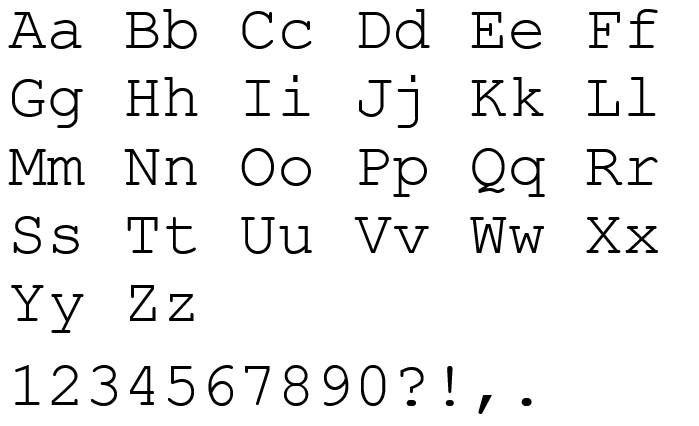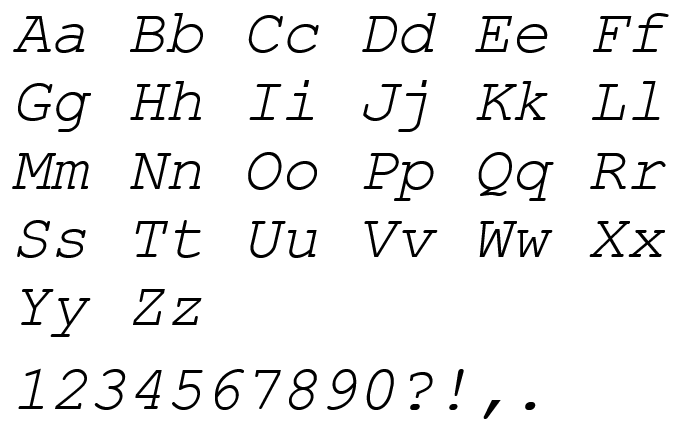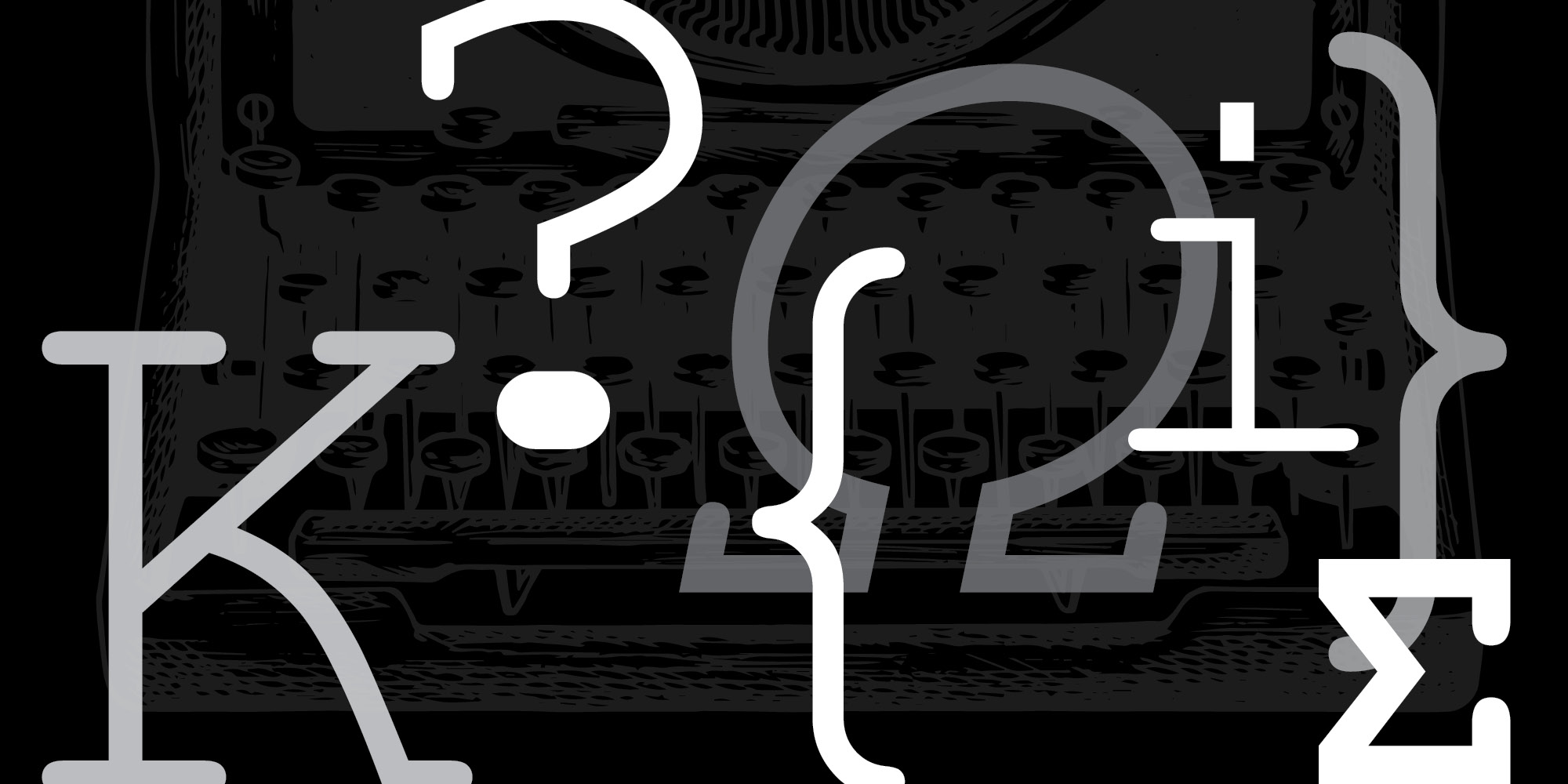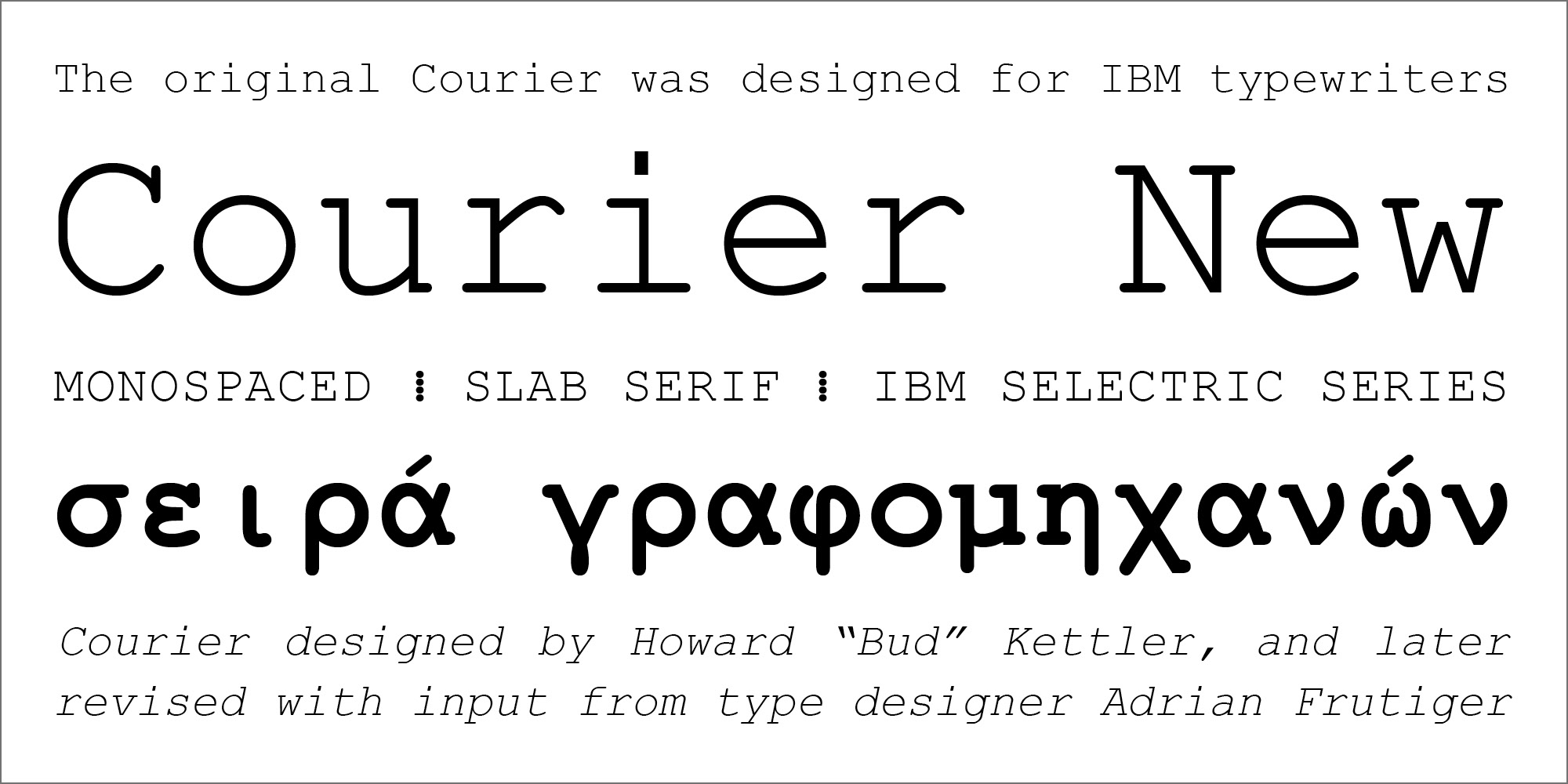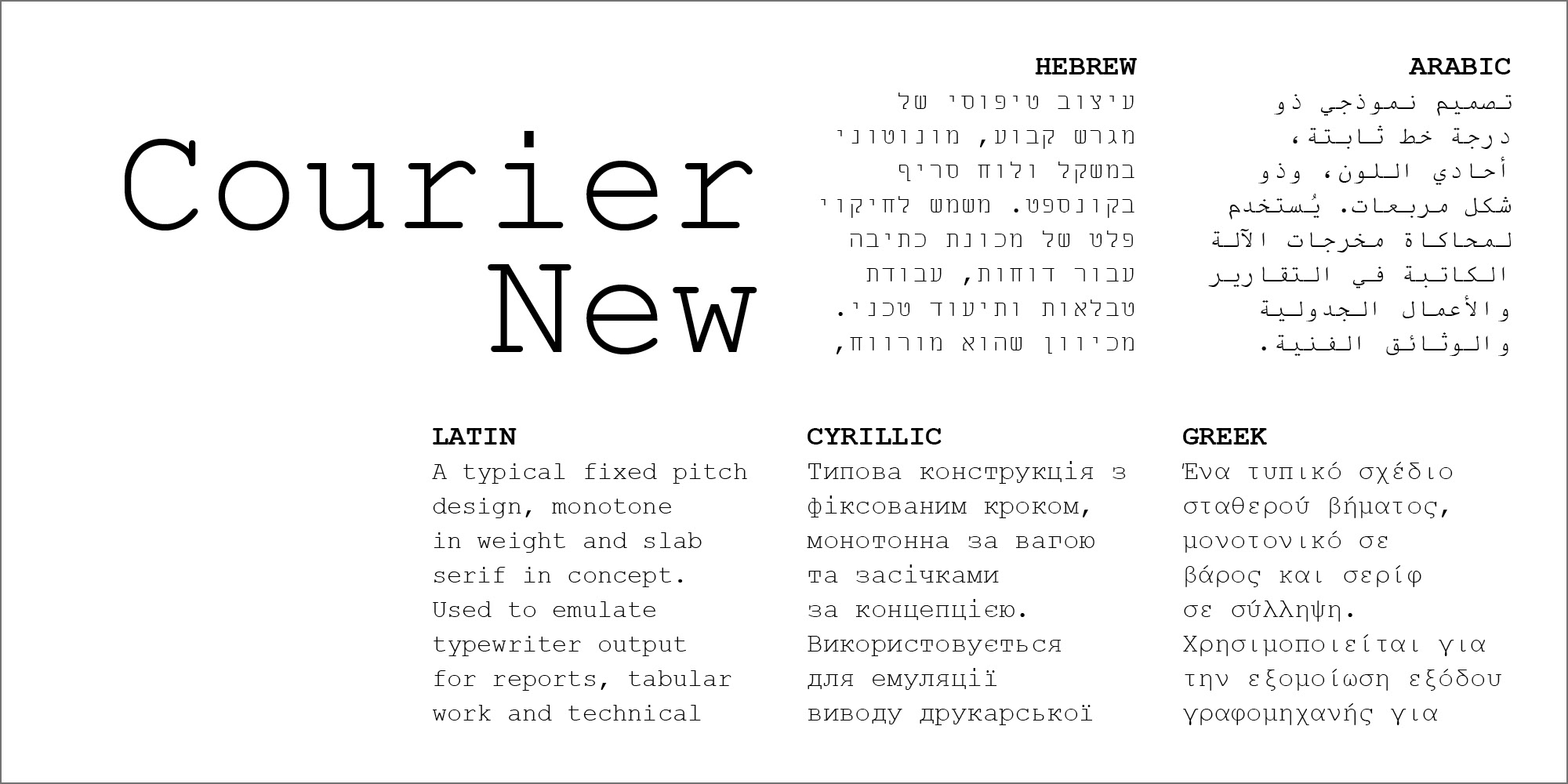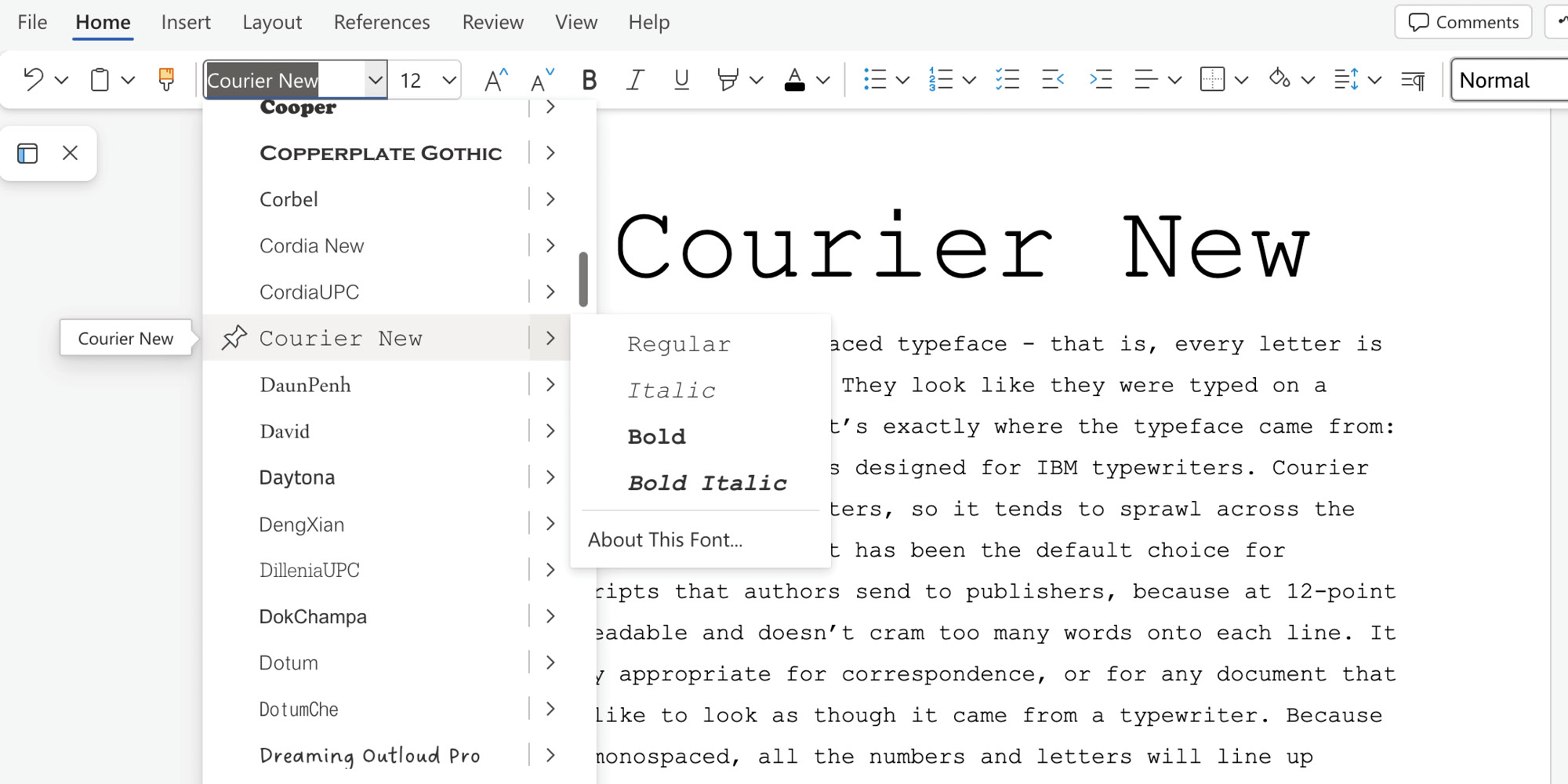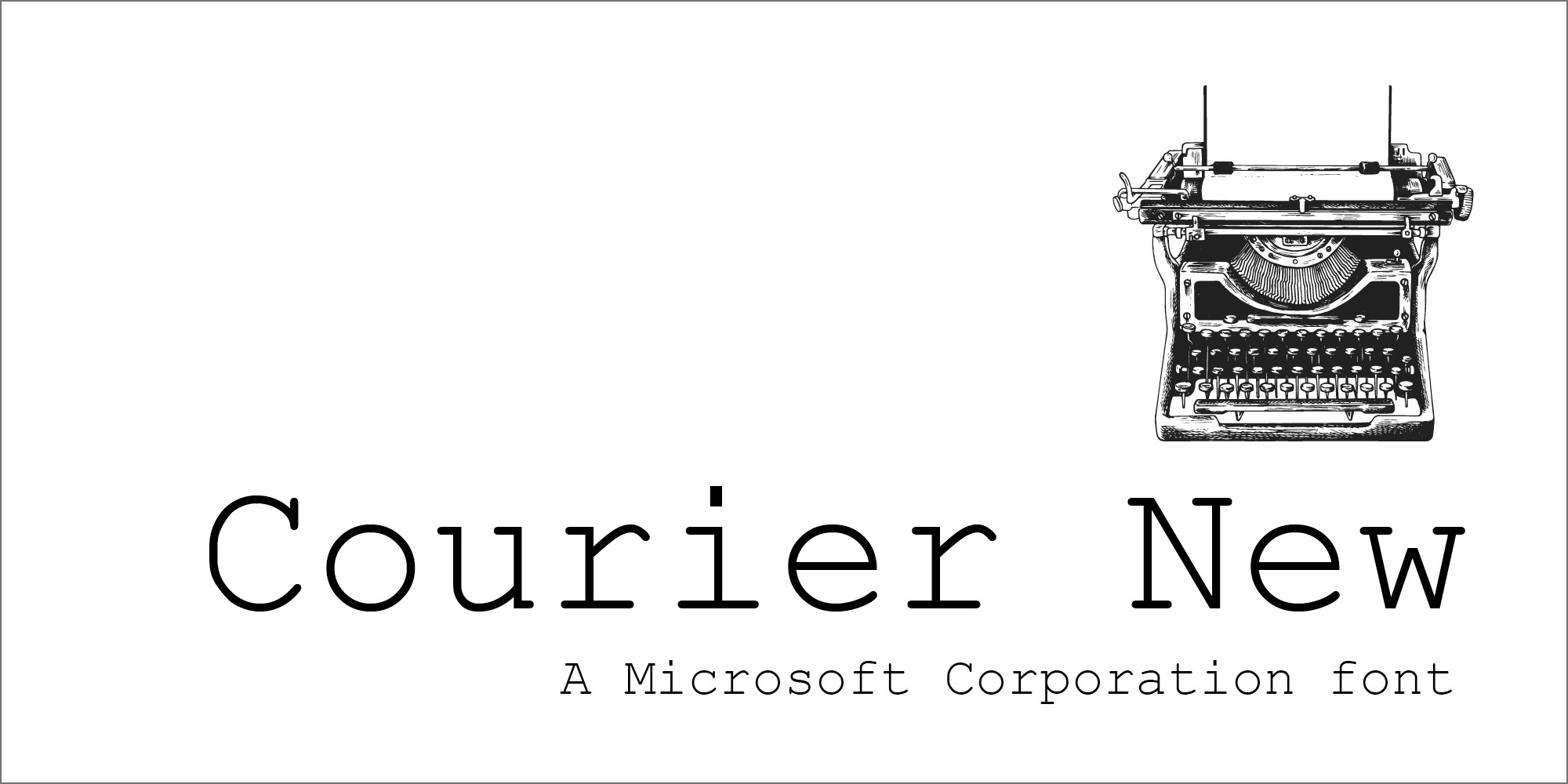
Designed as a typewriter face for IBM, Courier was re drawn by Adrian Frutiger for IBM Selectric series. A typical fixed pitch design, monotone in weight and slab serif in concept. Used to emulate typewriter output for reports, tabular work and technical documentation.
Designers | Howard Kettler |